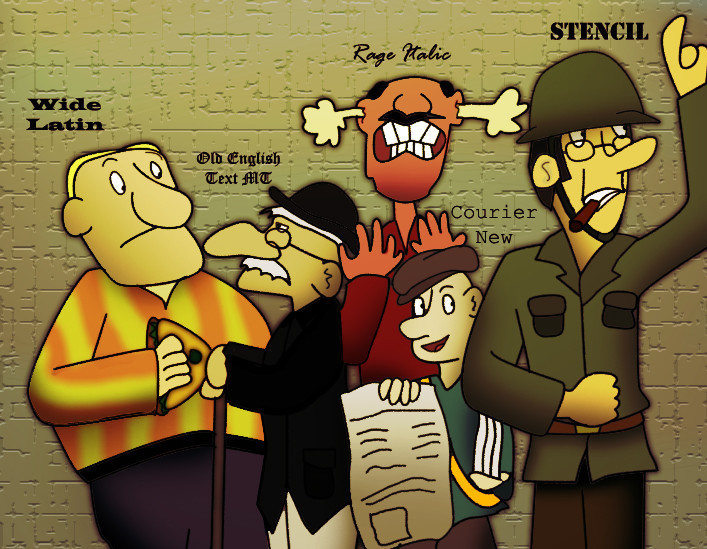
This serves as an inspiration: [link]What if the fonts got humanised? Tintin and Asterix style? Well this would be the result.
From Left to right:
Wide Latin
Old English MT
Rage Italic
Courier New
Stencil
One interesting thing about Stencil, is that I once designed a humanised Flippy and it resembles something close like that, minus the cigar and the helmet (exchange for a beret)